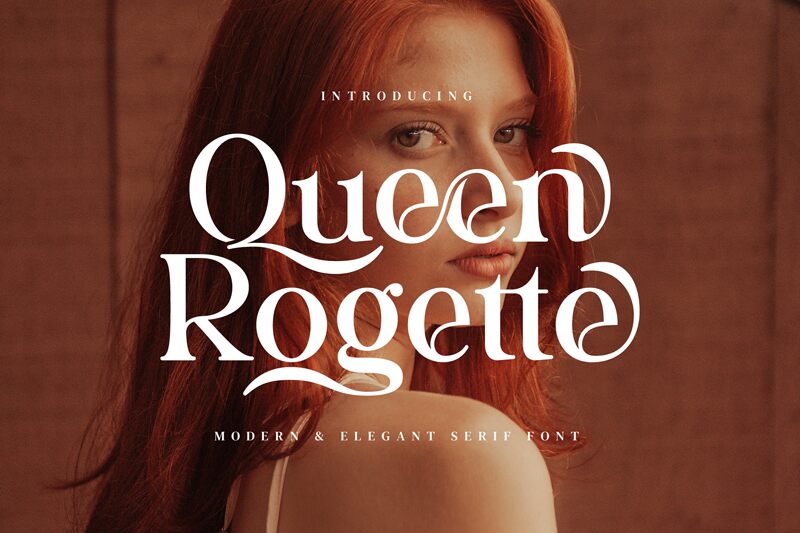
Queen Rogette font, an elegant classic serif by Biham Santoso, exudes sophistication with its dignified aesthetic. Seamlessly blending historical charm and a subtle flair, the typeface is capable of transforming simple textual elements into exquisite typographic adornments. Each line communicates richly while delicately commanding the users’ attention.
This free serif font is exceptionally versatile; use it for invitations, logos, titles in magazine layouts, quotes in posters, books cover design or even business cards. Other possible uses include typographic artwork display and stylish branding projects.